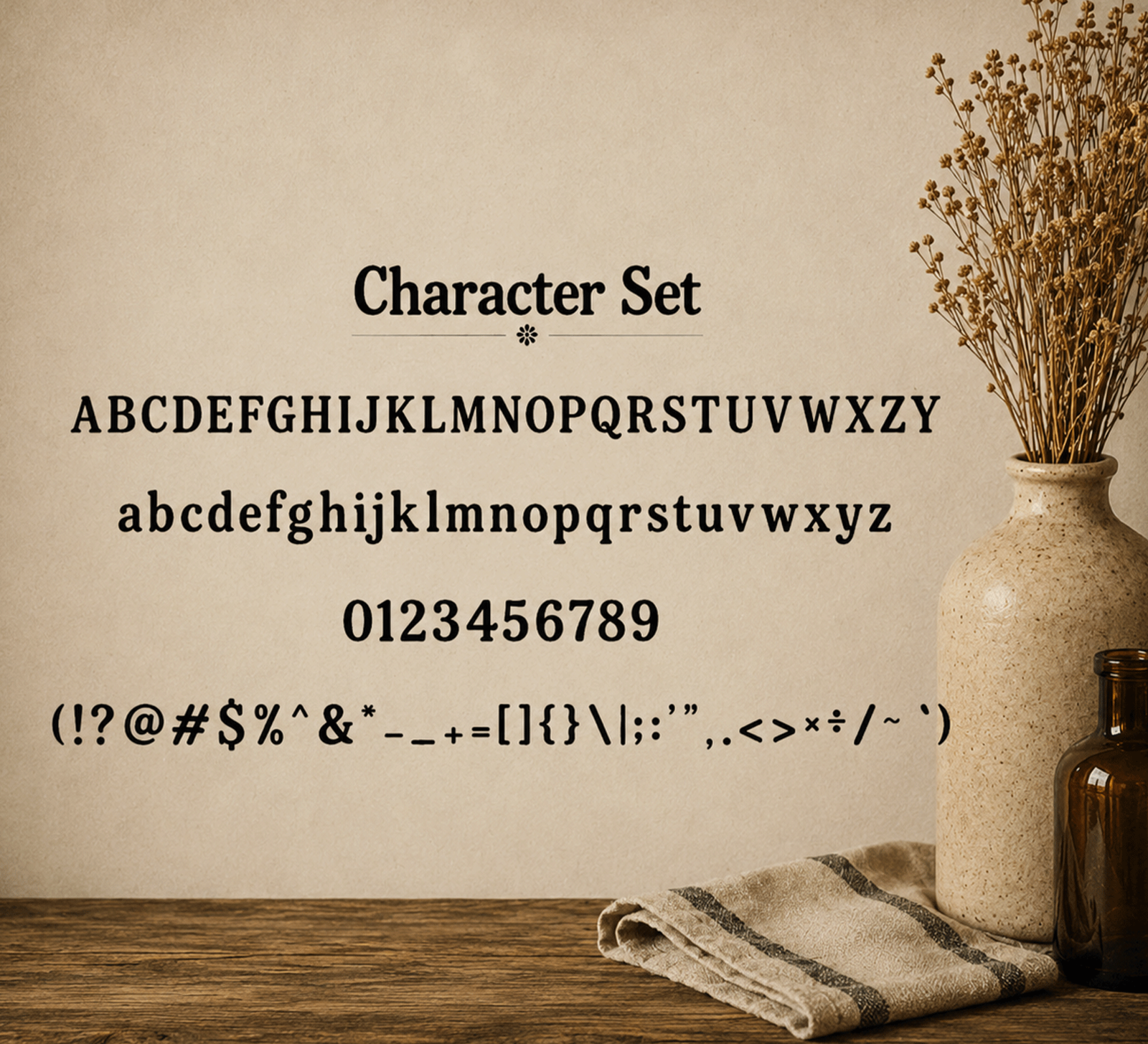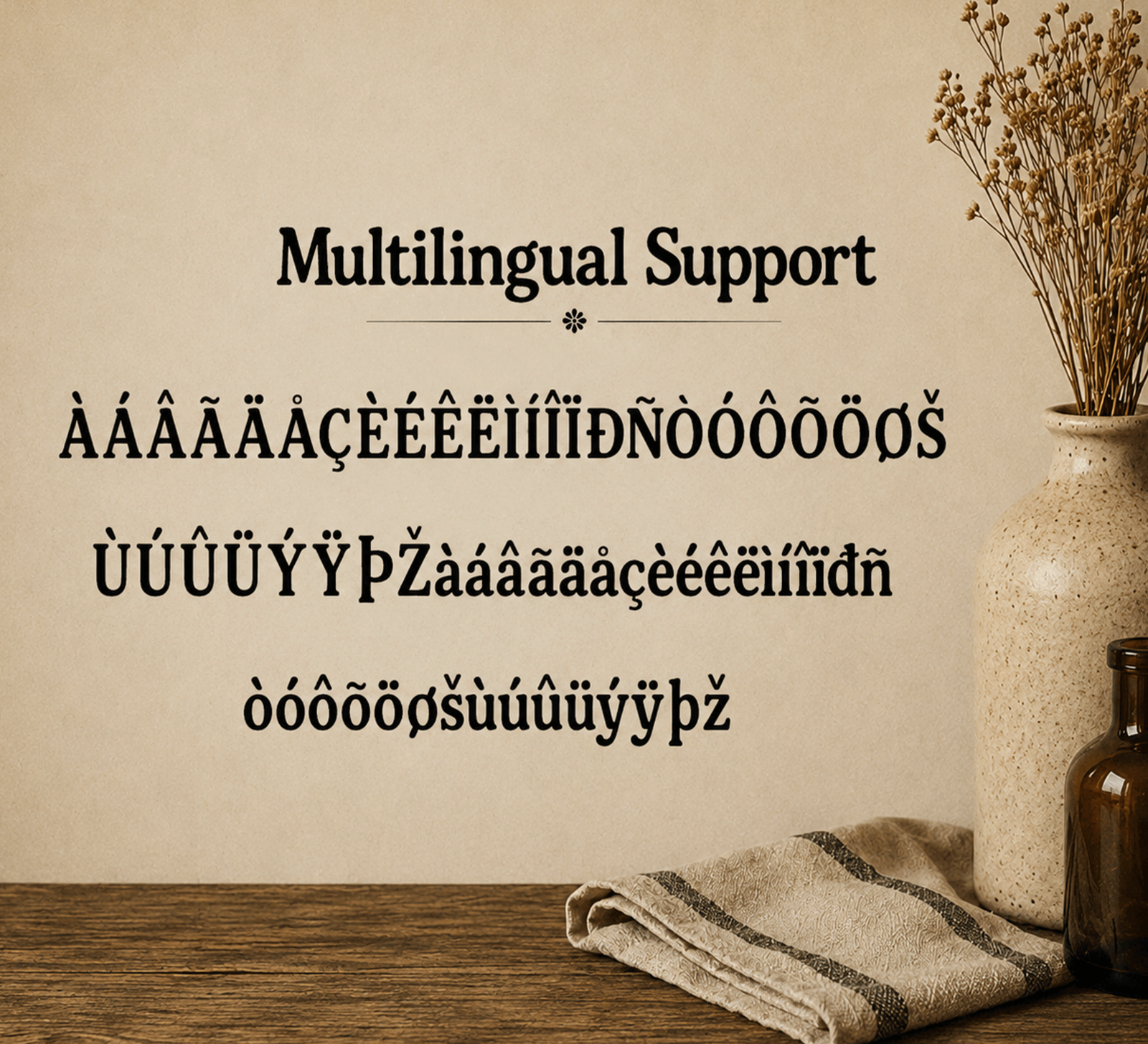
Market Folk is a bold serif font with a warm vintage feel and a clean modern touch. Its soft curves and handcrafted character make it perfect for designs that feel friendly, natural, and timeless.
• Café branding
• Organic products
• Boutique businesses
• Market signs
• Packaging
• Logos
• Product labels
• Home décor
• Social media designs